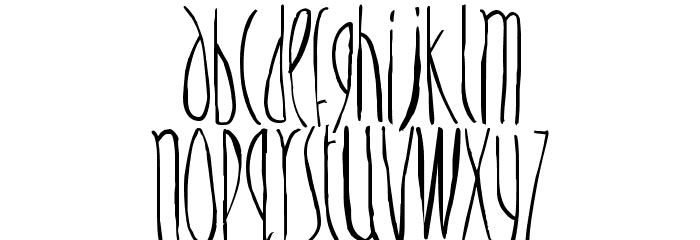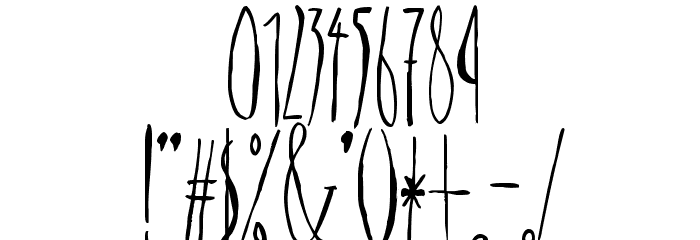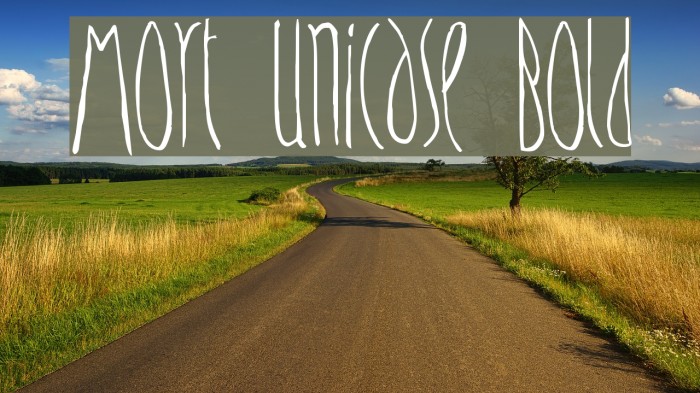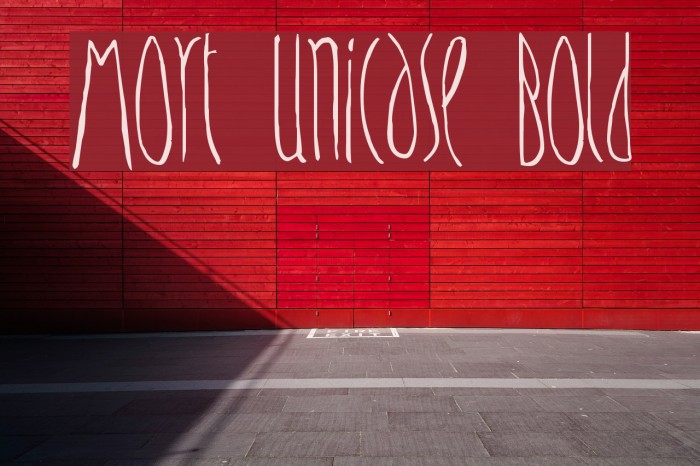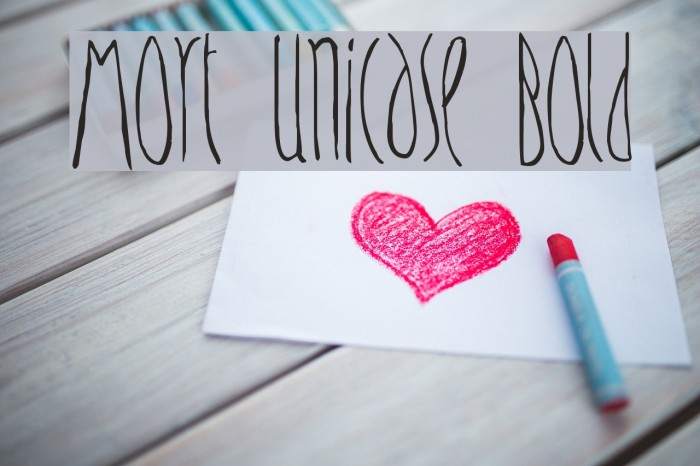
Mort Unicase Bold Font
This font features a unique and artistic design with elongated, narrow characters that create a striking visual impact. The letters have a hand-drawn quality, with varying stroke thickness that adds a dynamic and lively feel. The uppercase and lowercase letters share a similar height, contributing to a cohesive and unified appearance. The numbers and special characters maintain the same stylistic elements, ensuring consistency across all glyphs. This font's distinct style makes it suitable for creative and expressive projects where a bold statement is desired.
A unique, artistic font with elongated, narrow characters and a hand-drawn quality.
- Font: Mort Unicase Bold
- Proposed Projects: Ideal for posters, album covers, artistic branding, and creative editorial design.
- Overall Style: Artistic, Expressive